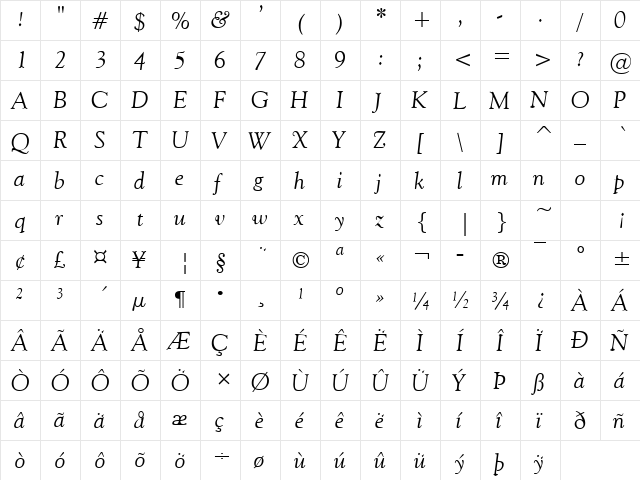
Carnegie Italic
Design Context for Carnegie Typeface
Carnegie takes a measured approach to typography — its balanced proportions and neutral character make it a reliable workhorse for both digital and print work. The slanted form adds forward momentum and visual energy.